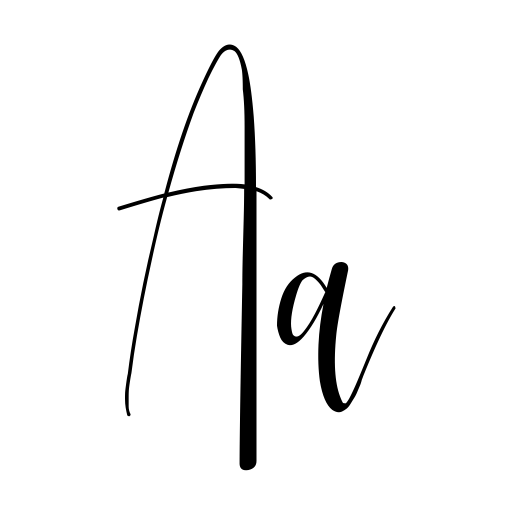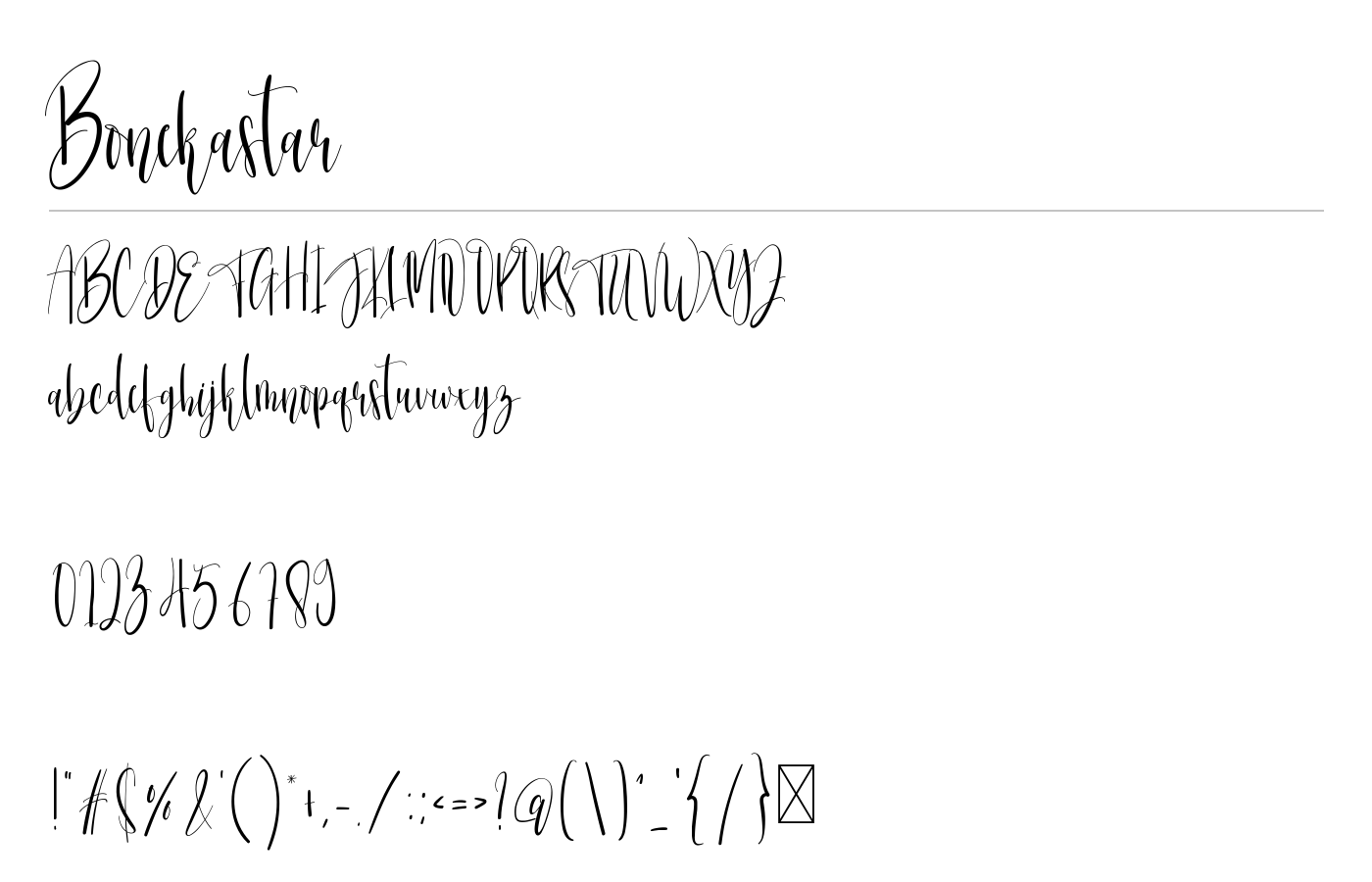
Bonekastar is an elegant, thin script font with delicate, flowing lines that create a whimsical and handcrafted feel. Its tall, narrow letterforms and high contrast strokes make it perfect for adding a sophisticated, artistic touch to invitations, branding, or feminine design projects. This font works best in decorative uses where a light, airy, and stylish personality is desired.
Bonekastar Font
About Bonekastar Font